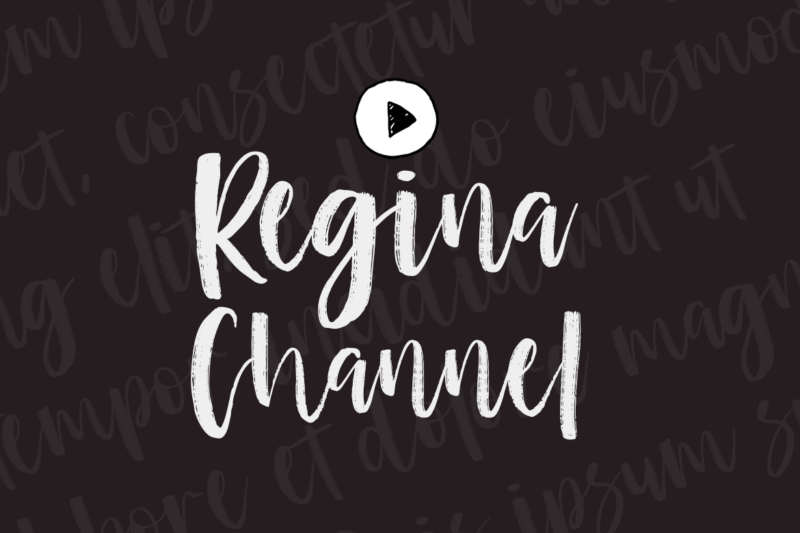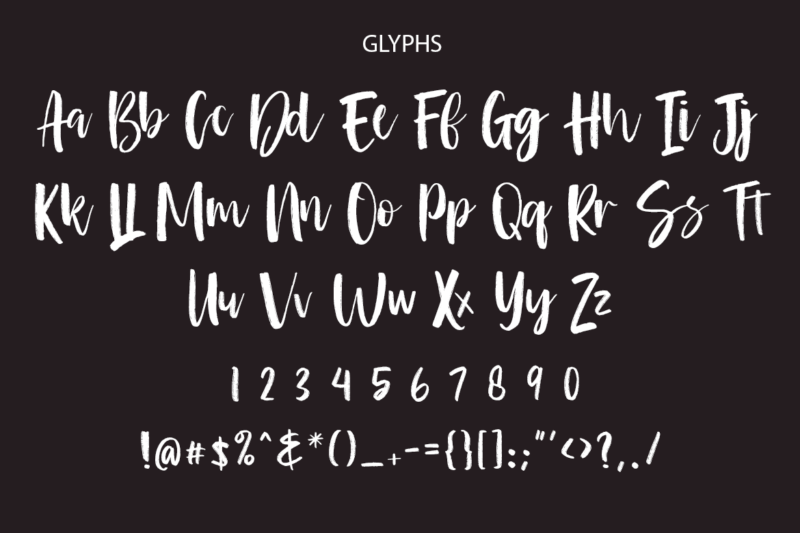
Lambe Doer Brush Font
Lambe Doer Brush font is a Modern Script font can make your text appear elegant, luxurious, and modern!
Lambe Doer Brush font is perfect for branding projects, logo, banner designs, social media posts, advertisements, product packaging, tshirt design, product designs, label, photography, watermark, invitation, stationery and any projects.
- Tons of glyphs
- Ligature